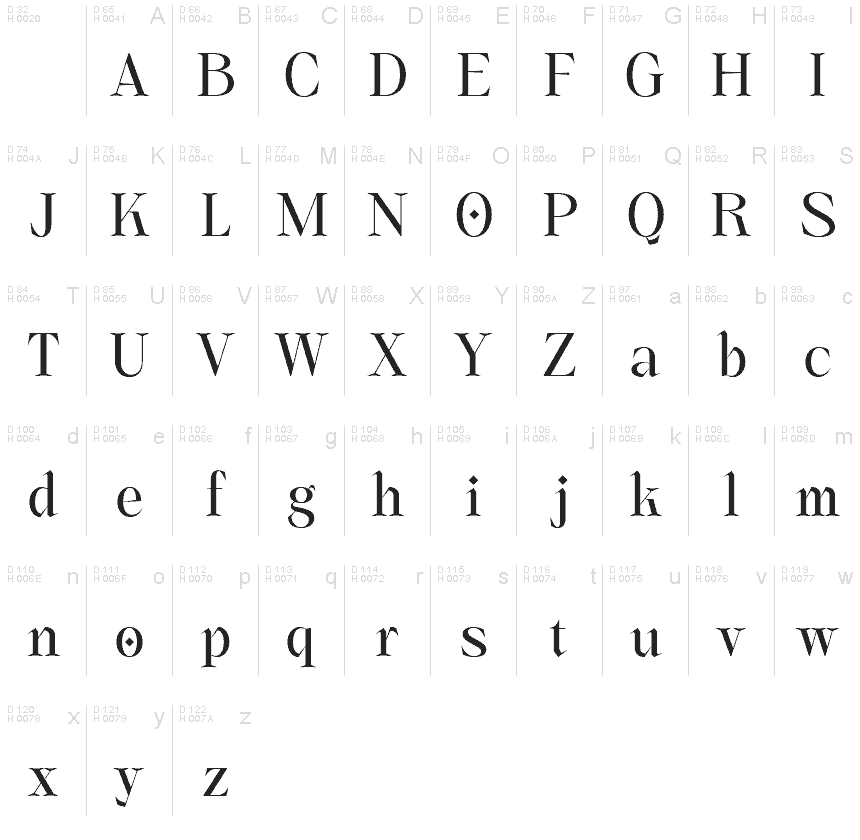
CS Romina Regular Demo
CS Romina font is a classic serif typeface from Craft Supply Co. with traditional roots and elegant decorative elements on letter terminals. The font has thin, delicate lines which together form a refined aesthetic perfect for designs that need a premium look.